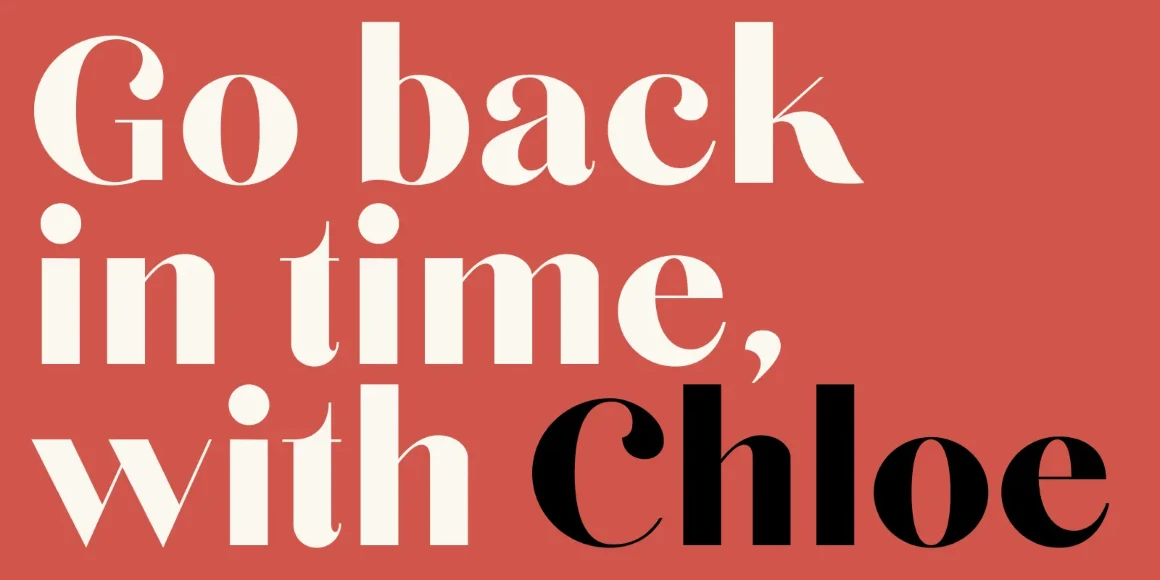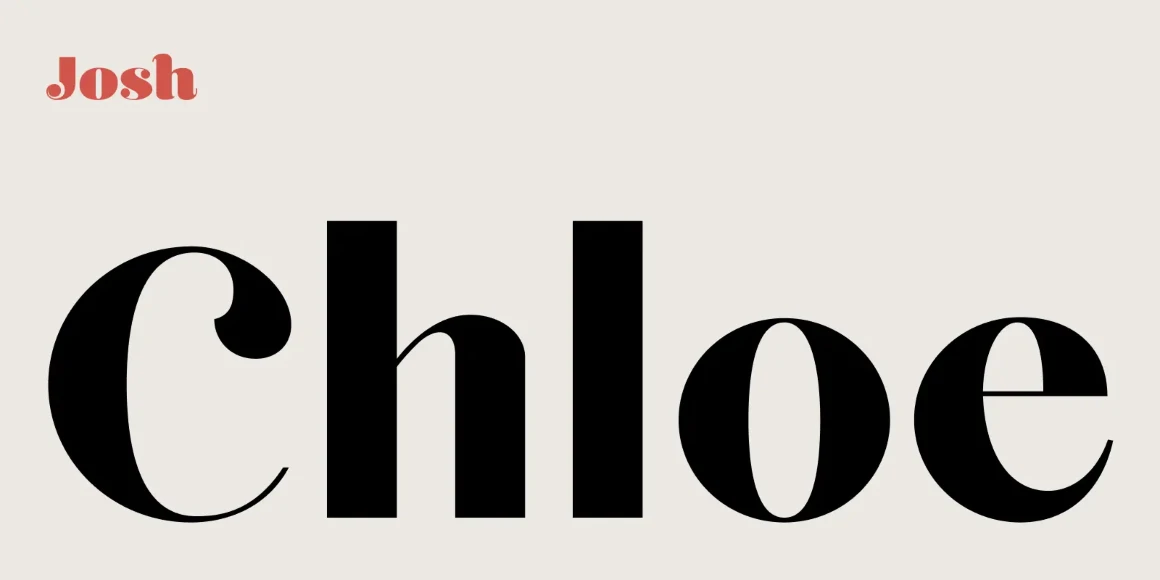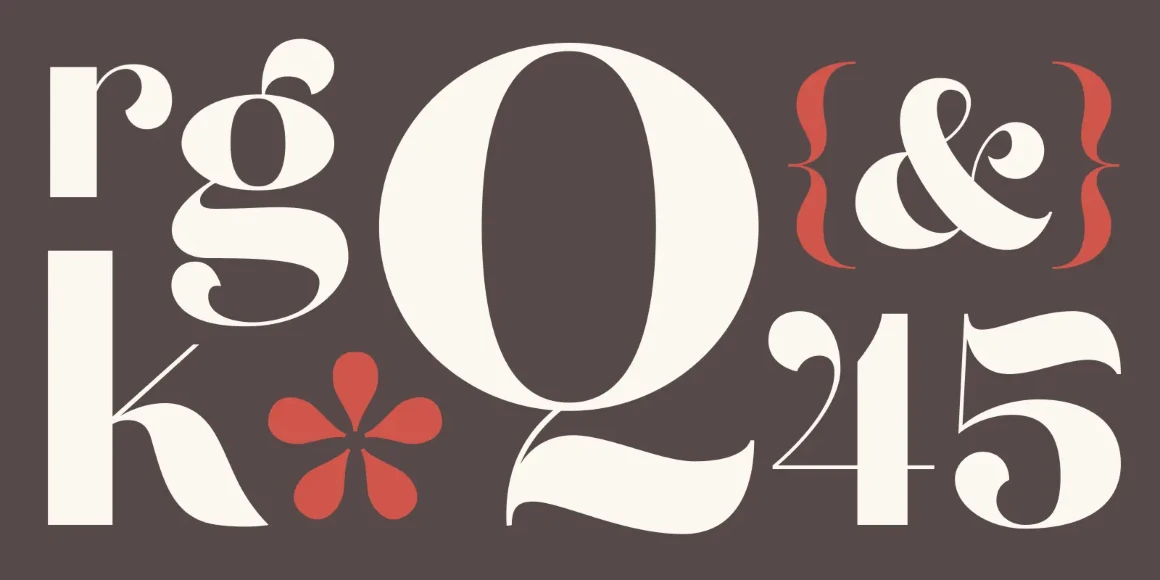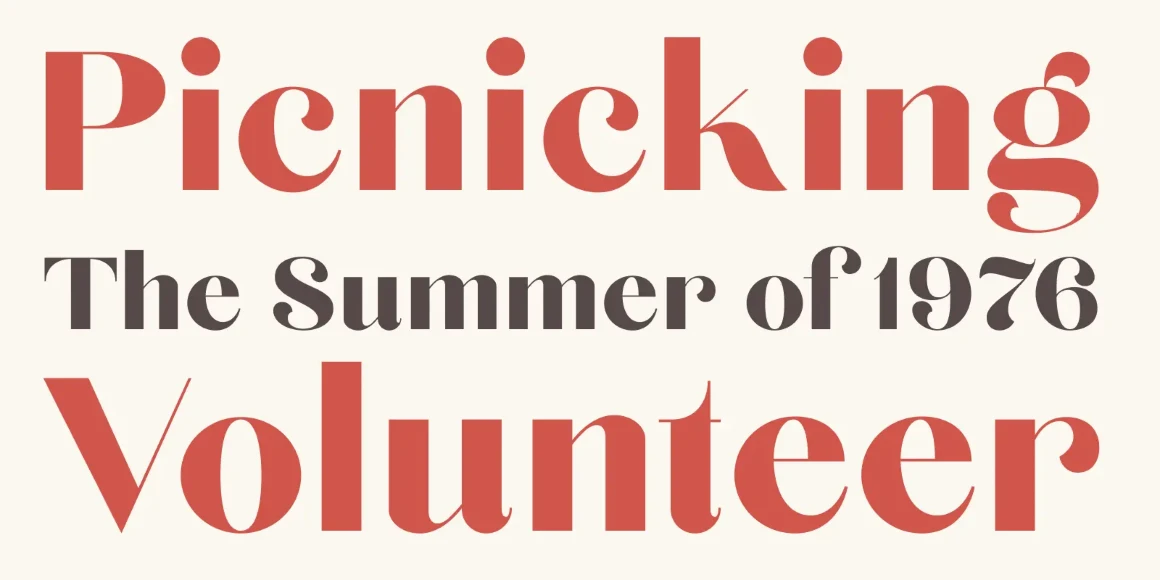
Chloe
By Josh Ownby
Chloe Regular
Chloe is a high-contrast sans serif with frivolous and playful details. Craft bold, gorgeous headlines and elegant typographic designs with a touch of vintage flair. Its contrasting lines and curved terminals give a lively and sleek, yet elegant, look to logos, holiday cards, wedding invitations, quotes, advertisements, and more. Although it’s a single style, it’s a versatile typeface that’s full of character and one you’ll come back to time and again. Create something beautiful today with Chloe.